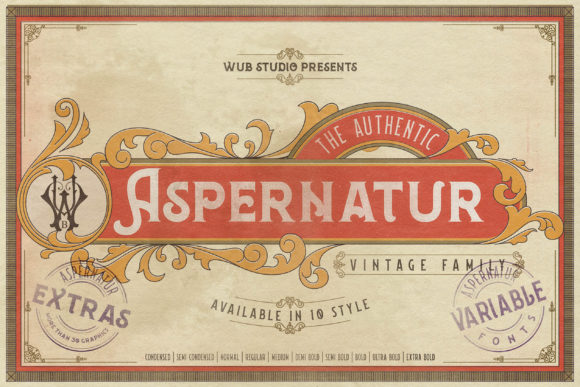
Prepare yourself to fall head over heels for Aspernatur, the captivating and alluring display font that will set your creative projects ablaze. Crafted with the utmost care by the talented team at Wub! Studio, Aspernatur is not just a mere font; it's a gateway to unlocking a world of visual enchantment.
Immerse yourself in the nostalgic charm of Aspernatur, a font that whispers tales of bygone eras. Its bold strokes exude an air of strength and confidence, making it the perfect choice for those seeking to make a lasting impact. From elegant family name signs to eye-catching headings, Aspernatur will effortlessly elevate your designs to new heights.
But Aspernatur's allure extends far beyond its vintage-inspired aesthetic. With its dynamic personality, this font breathes life into your words, transforming them into captivating expressions. Let Aspernatur be your creative muse, guiding you towards designs that resonate with both style and substance.
Don't settle for the ordinary; embrace the extraordinary with Aspernatur. Whether you're a seasoned design professional or simply seeking to add a touch of timeless charm to your projects, Aspernatur is the font that will ignite your imagination and set your designs apart.
So, dive into the enchanting world of Aspernatur today. Discover the endless possibilities that await you as you unleash the power of this remarkable display font. Prepare to be captivated, inspired, and utterly smitten with Aspernatur, the font that will transform your creative endeavors into masterpieces.